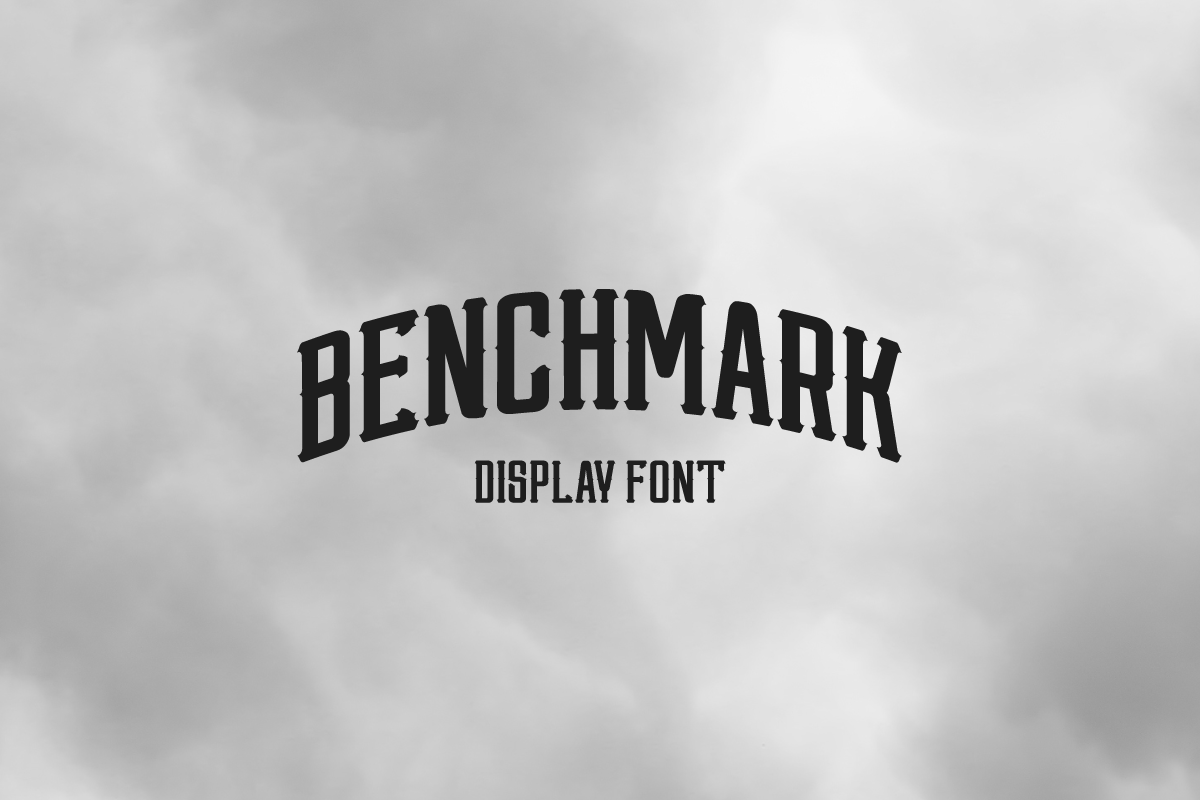
BENCHMARK DISPLAY FONT
Benchmark is a tall display font. Benchmark fits great vintage, rustic and hipster themes. The serif design gives the font a unique strong character.
Font contains 168 characters including letters, numbers, punctuation and international characters. The font also has140 kerned pairs.
Created by Jon Swinn.